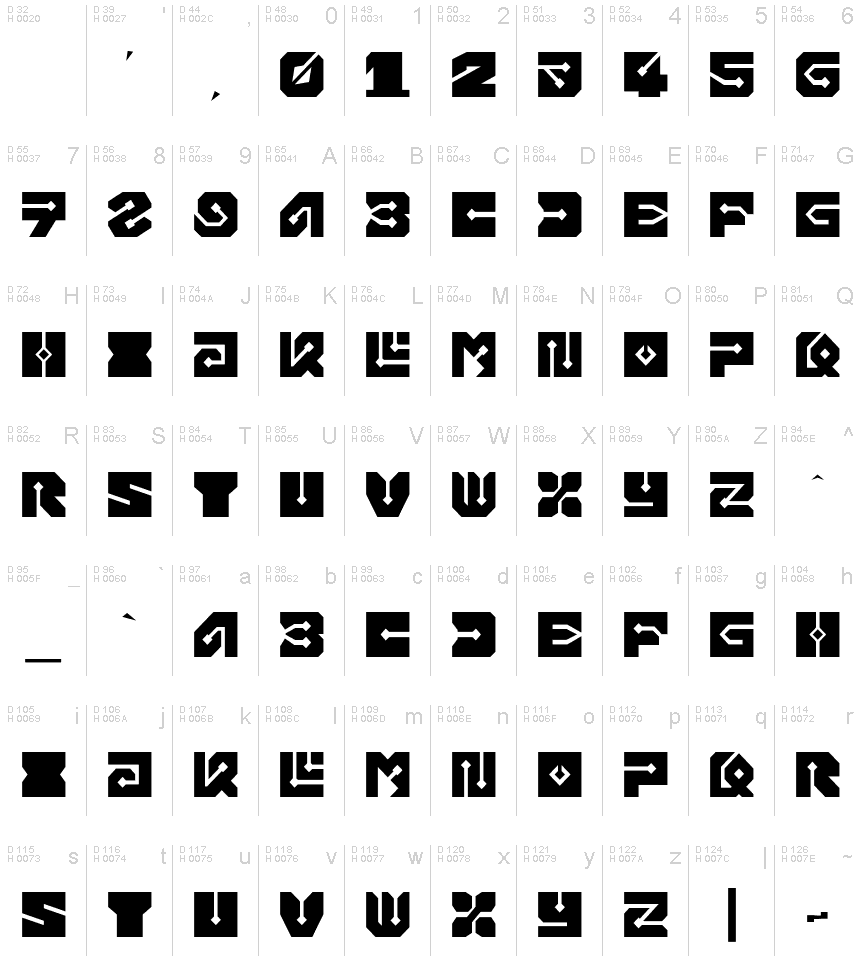
Chipboard Black
Chipboard Black font is a bold techno typeface designed by Farran Phlwyd Lee.
Designing within the constraints of a full square, mostly crafting the letter by cutting into the square, I used a combination of fractional proportions with eye-guided adjustments to produce forms which ride the edge between nonsensical boxes and letters determinable by holistic recognition of the word.
If you can't read it, try gazing at an entire word with soft eyes and let your brain's pattern-recognition hardware take over the deciphering process for you.
Alternatively, please report to me if any of the glyphs are simply too-far removed from acceptable alphabetic paradigms. :))))
Font includes Latin and Greek characters, numbers, and most combined diacritic letters. There are very few symbols and punctuation included thus far, but more are on the way. There are no lowercase characters: typing in lowercase will print the uppercase glyphs.
I am aware that 6 looks uncomfortably akin to G; also B to 3.
Imagined use-case: technological fantasy artwork, writing on machines, neon lighting, spacecraft, etc.